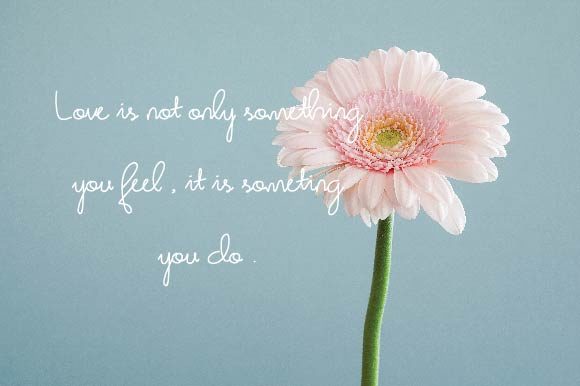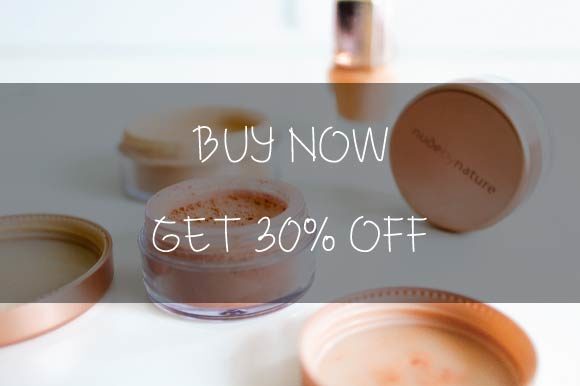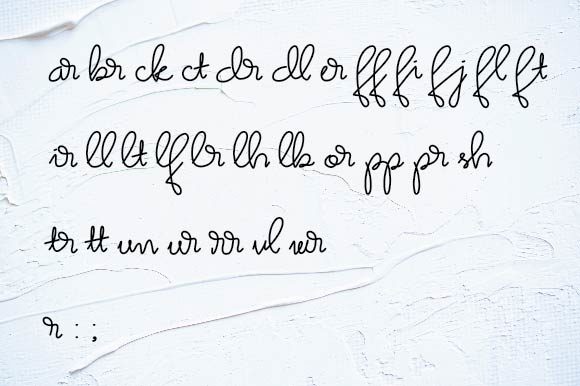
Introduction to Jes Lee Font
As a designer, you know that finding the perfect font can be the game-changer in a creative project. The right font can elevate your design from good to great, and sometimes, it’s just a matter of stumbling upon that one special font that sparks inspiration.
For those who have been searching for a high-quality, elegant handwritten font to add a touch of sophistication to their designs, we have some exciting news. Say hello to the Jes Lee Font, a light and airy script font that’s perfect for adding a delicate charm to any design project. With its transparent background and free download option, this versatile font is a valuable resource for designers of all levels.
Whether you’re working on a personal project or a professional design brief, the Jes Lee Font is sure to be a valuable addition to your design toolkit.
Jes Lee Font
- High-quality, elegant design suitable for various creative projects, including wedding invitations, fashion magazines, and luxury brands.
- Unique characteristics include elegant curves, refined lines, and a sophisticated aesthetic, making it ideal for high-end designs.
- Perfect for designers seeking a high-quality, versatile font to elevate their creative projects.
Honest Review: Jes Lee Font
I recently stumbled upon the Jes Lee Font, and I must say it’s been a game-changer for my creative projects. As a designer, I’m always on the lookout for high-quality design resources that can elevate my work. This font is a great addition to my collection.
- Transparent background, allowing for seamless integration into any design
- ⚠️ Limited character set, which may not be ideal for lengthy text
- ⚠️ Not as versatile as some other fonts, which may limit its use in certain contexts
Overall, I’m impressed with the Jes Lee Font. It’s a great choice for designers who want a high-quality, unique font for their creative projects. With its transparent background and free download, it’s a great addition to any design library. While it may have some limitations, I think it’s a great resource for designers who want to add a touch of elegance to their work.
Jes Lee Font is suitable for a variety of creative projects, including social media graphics, logos, and brochures. Its high-quality design makes it a great resource for businesses and designers looking to create professional-looking materials.